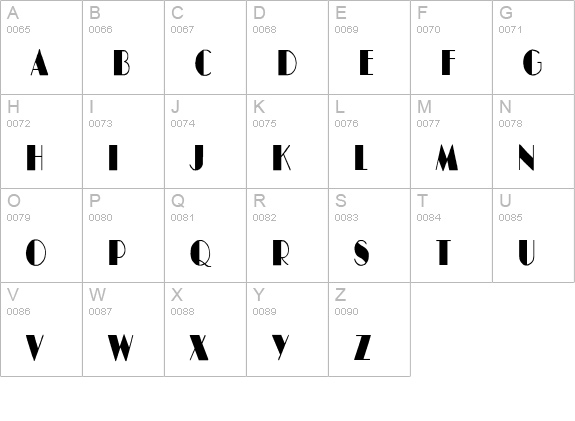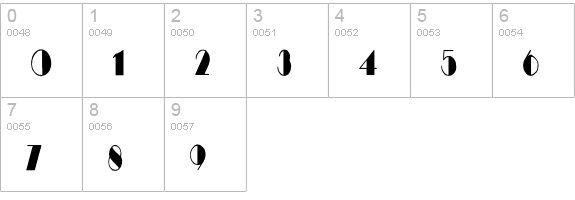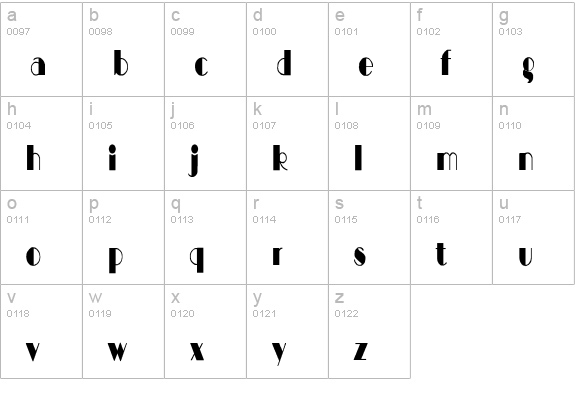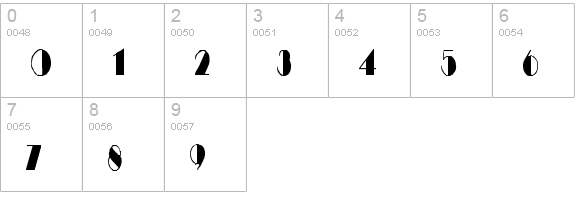
BIGCITY-Norm-Cn font is a modern and stylish typeface that exudes urban sophistication. With its clean lines and sleek design, this font is perfect for creating bold headlines, eye-catching posters, and striking logos. The geometric shapes and sharp angles give BIGCITY-Norm-Cn font a contemporary feel that is sure to make your designs stand out. What makes BIGCITY-Norm-Cn font even more appealing is that it is completely free to download. You can get your hands on this versatile typeface at FontsMarket.com, where you can access a wide range of high-quality fonts for all your design needs. Whether you're a graphic designer, a creative professional, or just someone looking to add a touch of modern flair to your projects, BIGCITY-Norm-Cn font is the perfect choice. Download it today and elevate your designs to the next level!